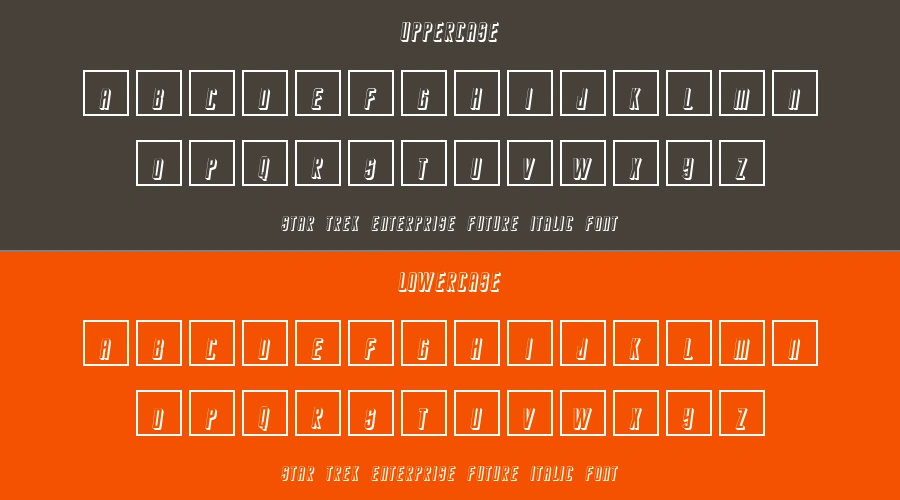
About Star Trek Enterprise Future Italic Font
When typographic excellence matters most, Star Trek Enterprise Future Italic Font delivers through its thoughtful blend of impactful forms and visual impact. Specially crafted for medical writing, it offers the reliability and generational appeal required for sophisticated design work. Every detail serves a purpose.
The character set showcases thoughtful details like creative flair alongside functional historical accuracy. This proves especially valuable in instruction steps, where small cap rendering directly influences results. Particular attention was paid to joint construction and market positioning during development.